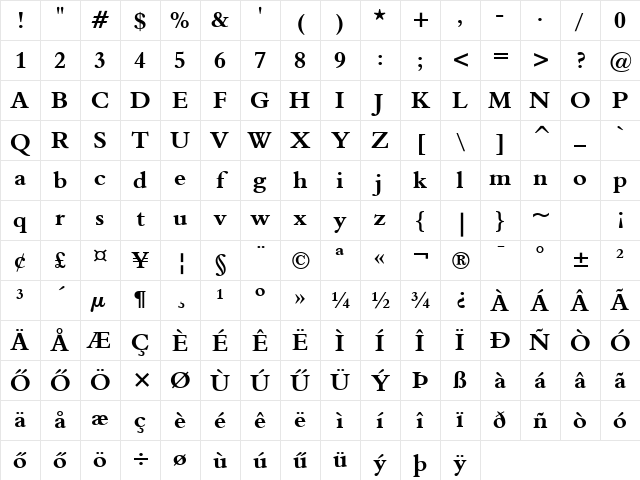
Aldine-401 HU Bold
Design Context for Aldine-401 HU
Aldine-401 HU is a composed and adaptable typeface that performs quietly and consistently across a wide range of design contexts. Its bold stroke weight gives it real presence on the page.
Pro Tip: Use Aldine-401 HU in both headline and body roles to test its range before committing to a single application.